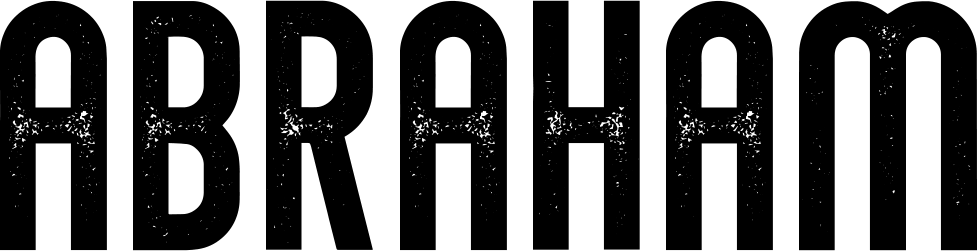
Abraham Font
Abraham gives a cool and mysterious look to your texts. This retro font has thick and bold characters that have been eroded in certain areas. You can use it to write club signs, informal headlines, mystery puzzles, horro…
Abraham gives a cool and mysterious look to your texts. This retro font has thick and bold characters that have been eroded in certain areas. You can use it to write club signs, informal headlines, mystery puzzles, horror movie and book titles, and channel and page banners. All the letters are capitalized and it doesn’t have any numerals.